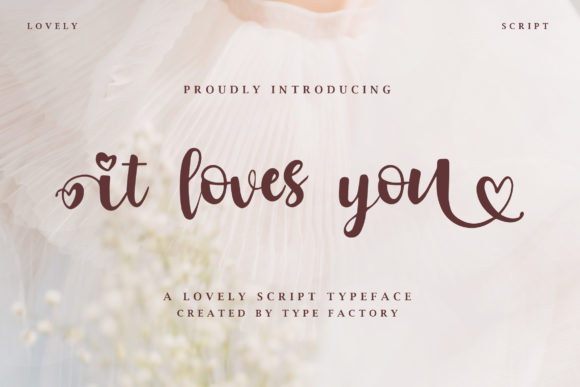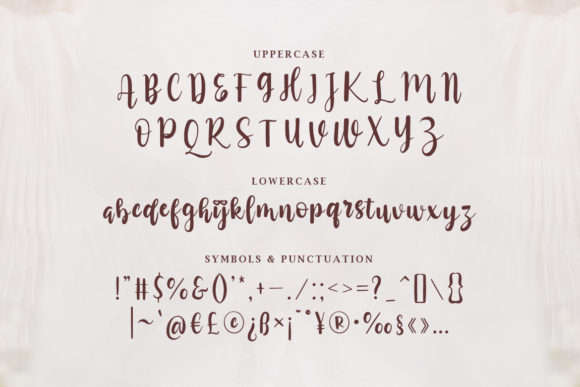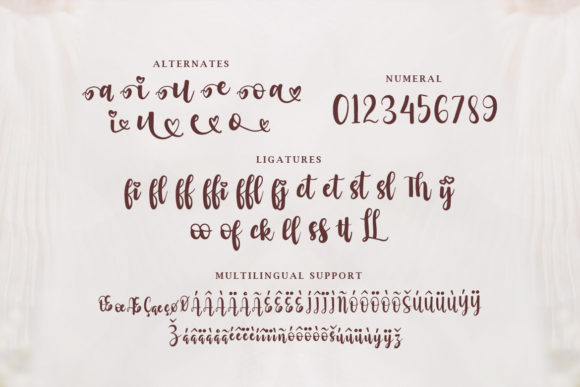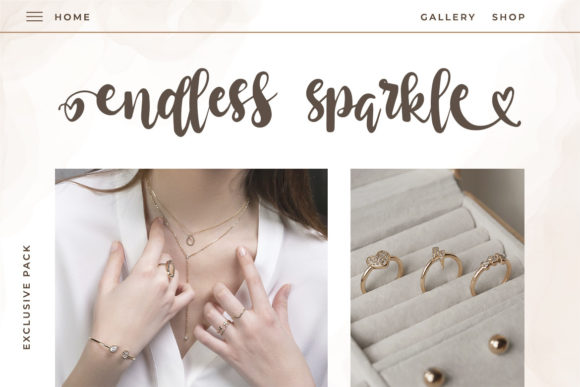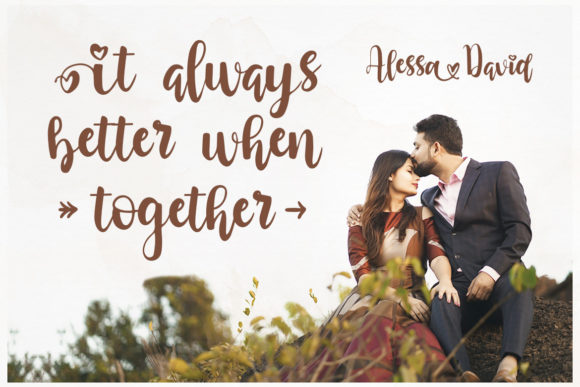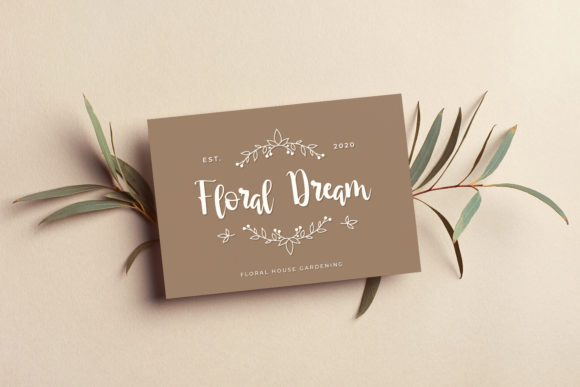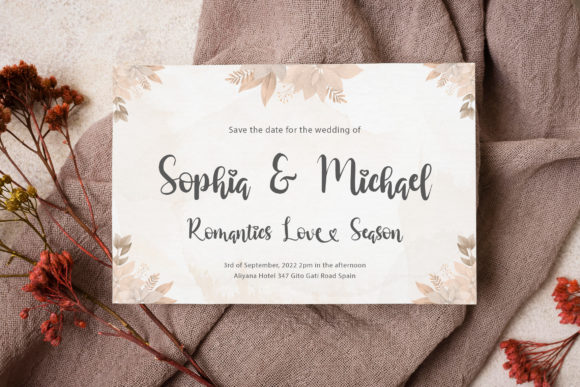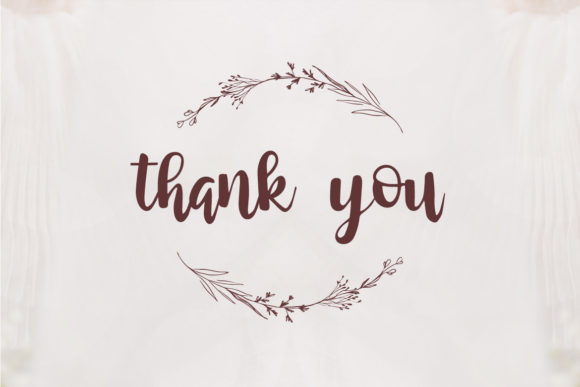
It Loves You Font
About It Loves You Font
**It Loves You** is introduced as a classy and lovely script font, combining elegance with a touch of charm. Tailored for creating original designs, this font is well-suited for a diverse range of applications. Its versatile nature makes it an excellent choice for logos, greeting cards, makeup or skincare branding, quotes, headings, wedding invitations, posters, and various other design projects.
The classiness of **It Loves You** is evident in its script style, offering an elegant and sophisticated appearance. Each character is crafted with a keen eye for detail, contributing to an overall design that exudes refinement. This font becomes a key element in projects that require a touch of class and timeless appeal.
Perfect for logos, **It Loves You** adds a distinctive and stylish signature to brand identities. The script font brings a sense of personality and sophistication, making it suitable for businesses in the beauty, wedding, or luxury sectors. Whether used in full brand names or as a subtle design element, this font enhances brand recognition.
In the realm of greetings and quotes, **It Loves You** offers a lovely handwritten touch. Its elegant style conveys warmth and sincerity, making it a perfect choice for greeting cards and social media posts. The font becomes a visual expression of heartfelt messages, creating a connection with the audience.
For makeup or skincare branding, **It Loves You** brings a touch of glamour and sophistication. The script font complements the aesthetics of beauty and skincare products, enhancing the overall visual appeal of packaging, labels, and promotional materials.
In wedding invitations and posters, **It Loves You** becomes a key element in creating a romantic and stylish atmosphere. The elegant script adds a touch of sophistication to event materials, making it ideal for conveying the unique charm of weddings and special occasions.
The PUA encoding of **It Loves You** enhances accessibility, allowing easy access to its amazing glyphs and ligatures. This feature simplifies the process of incorporating special characters and variations, providing a user-friendly experience for designers.
In essence, **It Loves You** is more than just a font; it becomes a design companion that adds a classy and lovely touch to your creative projects. Whether applied to logos, greeting cards, beauty branding, quotes, wedding invitations, or other design endeavors, this script font stands ready to elevate your designs with elegance and timeless appeal. Embrace the charm of **It Loves You** and experience the impact it brings to your visual storytelling.